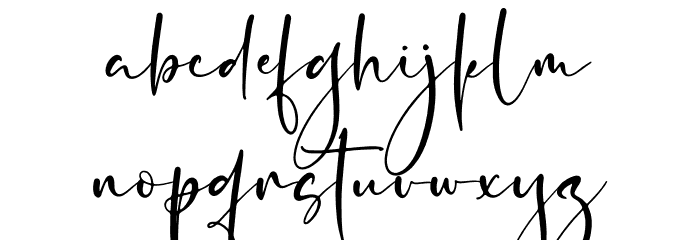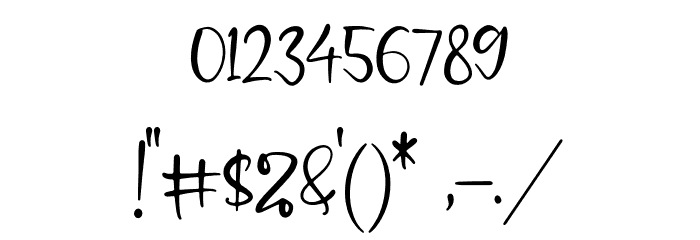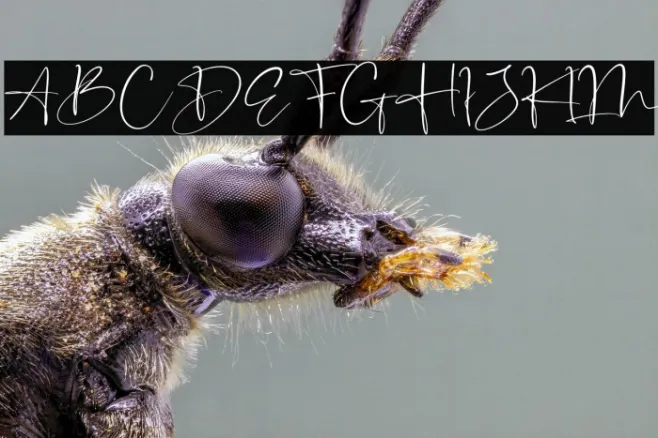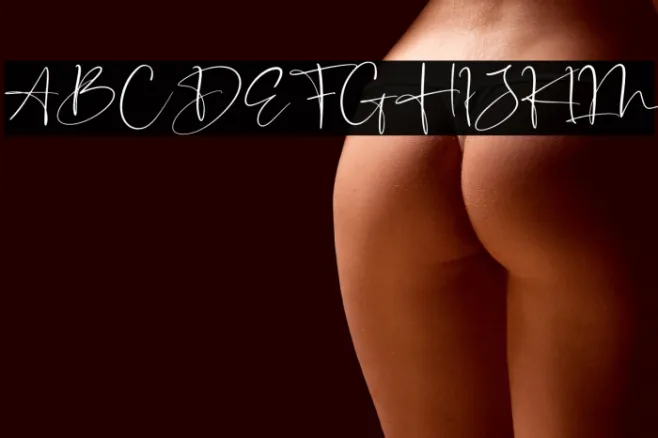
Senorita Signature Font
This elegant and flowing script font exudes a sense of sophistication and charm. The letters are interconnected with smooth, sweeping strokes that mimic the fluidity of handwriting. The uppercase letters are tall and slender, while the lowercase letters maintain a consistent baseline, adding to the font's graceful appearance. The numerals and special characters are designed with the same attention to detail, ensuring a cohesive look across all text. This font is perfect for projects that require a personal touch, such as invitations, greeting cards, or branding materials. Its delicate lines and stylish curves make it a standout choice for any design that aims to convey elegance and refinement.
A sophisticated, flowing script font with elegant, interconnected strokes.
- Font: Senorita Signature
- Proposed Projects: Ideal for wedding invitations, personal branding, greeting cards, and elegant packaging.
- Category: Script
- Overall Style: Elegant, Decorative
- Use Case: Logos, Invitations, Greeting Cards